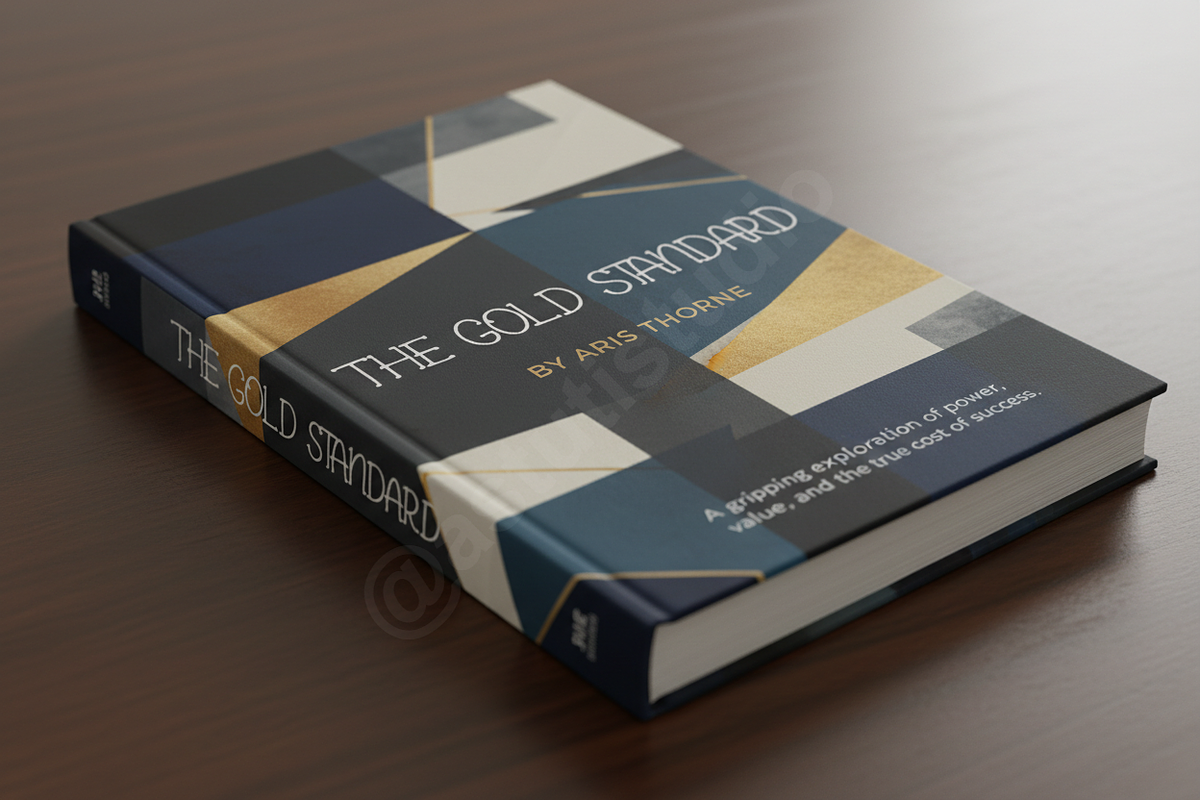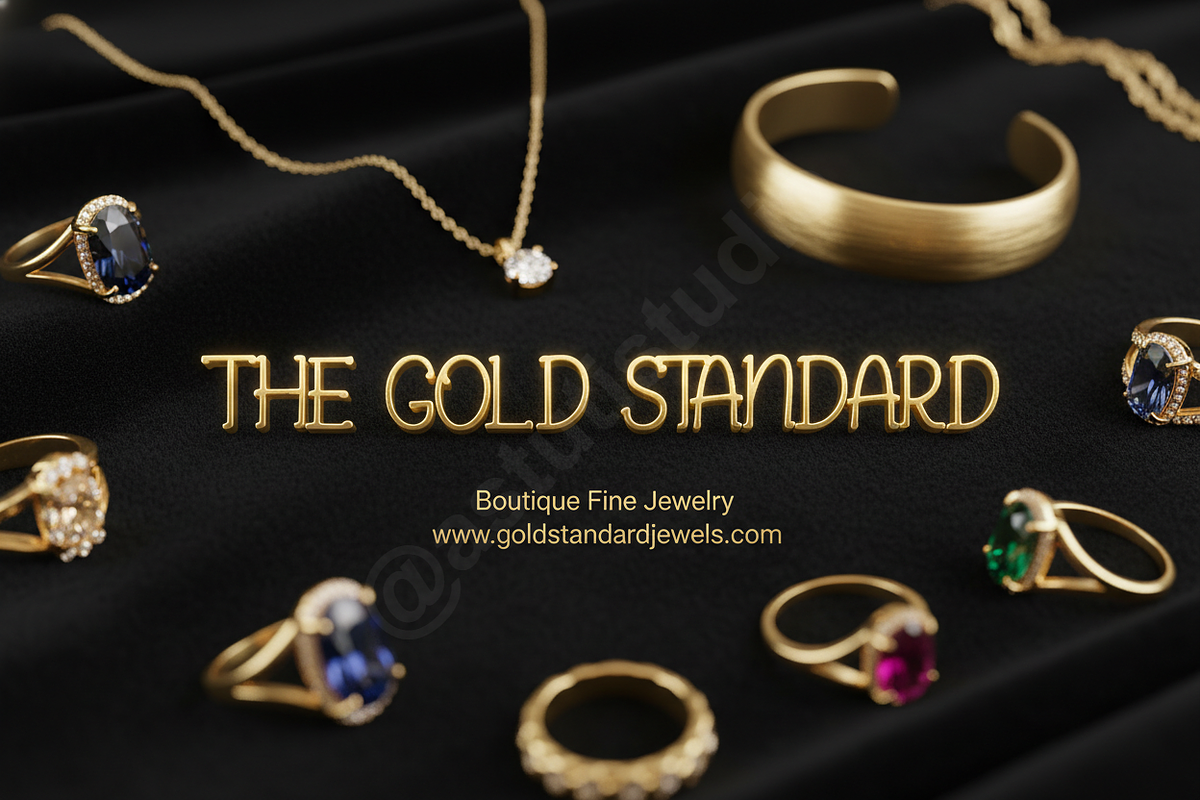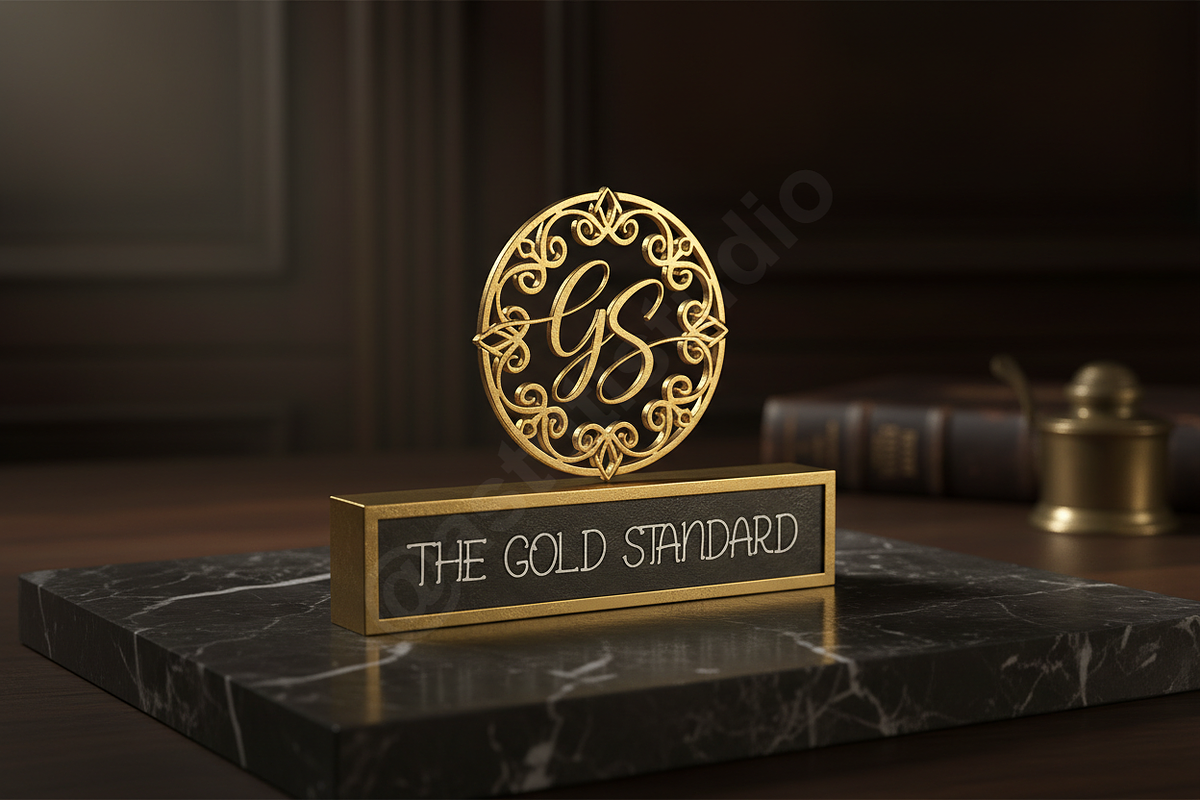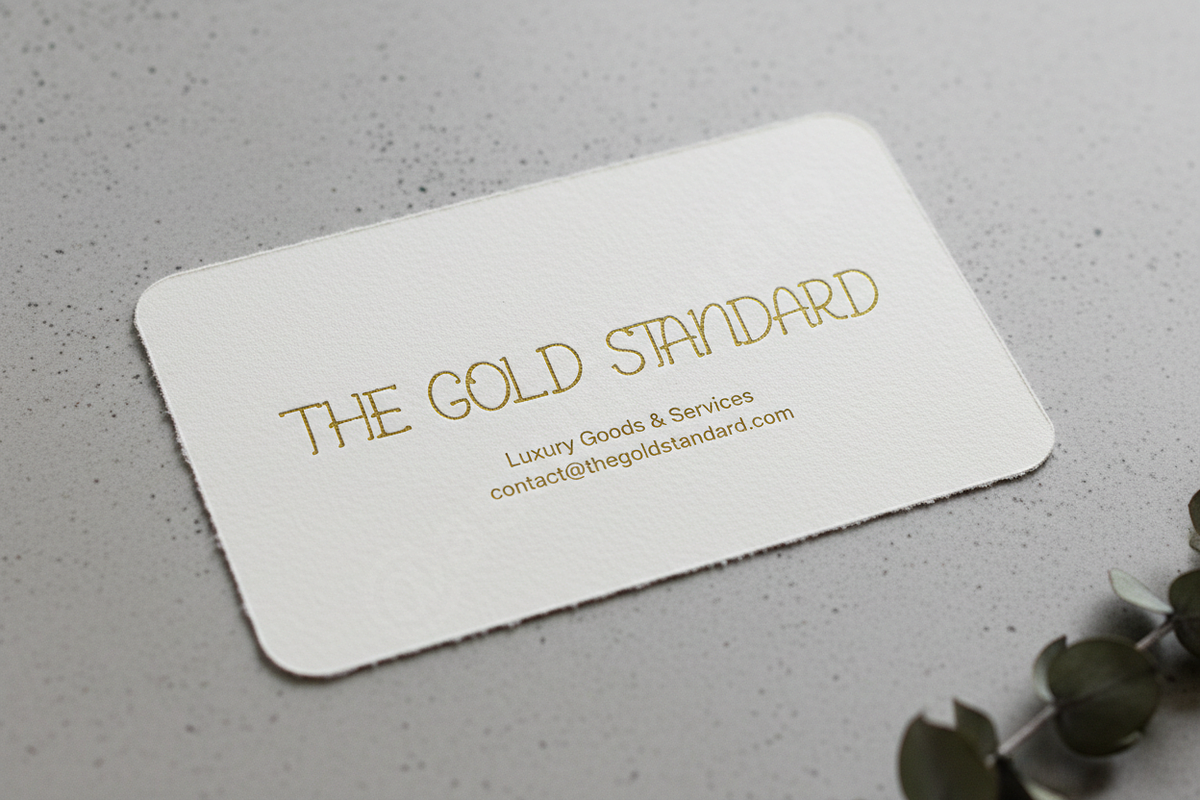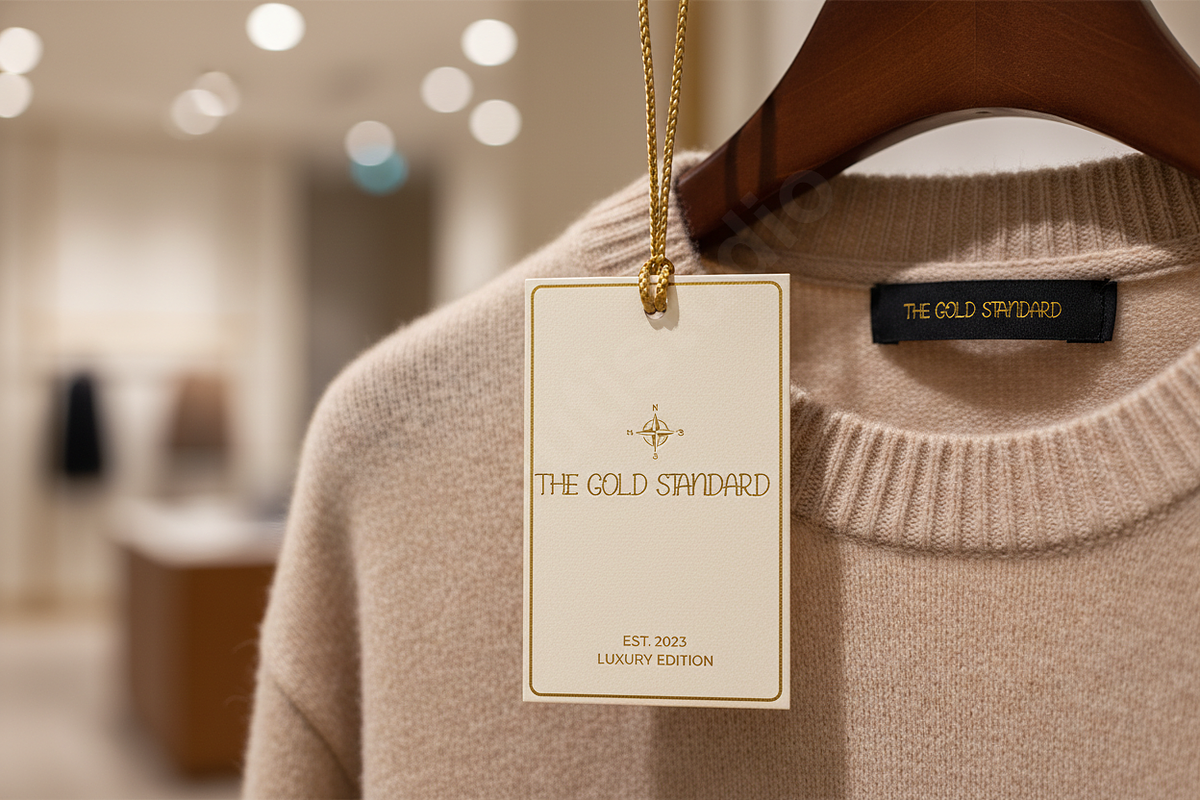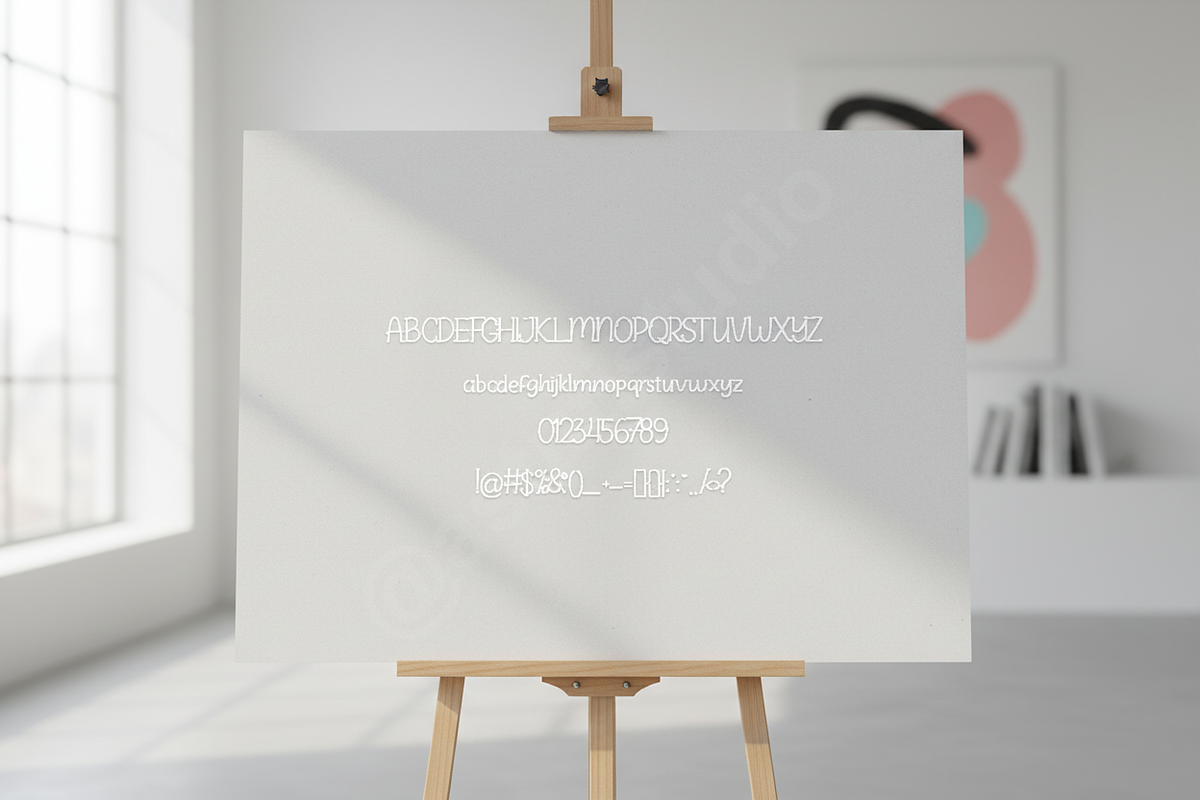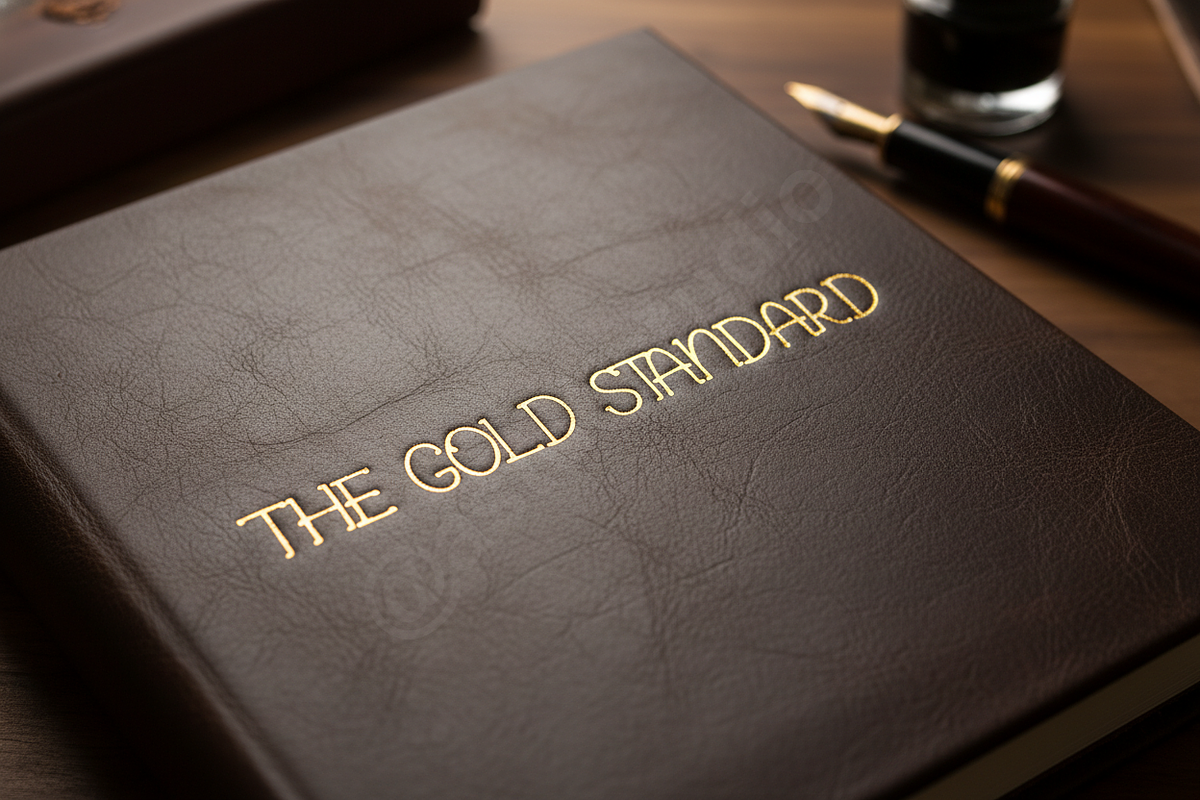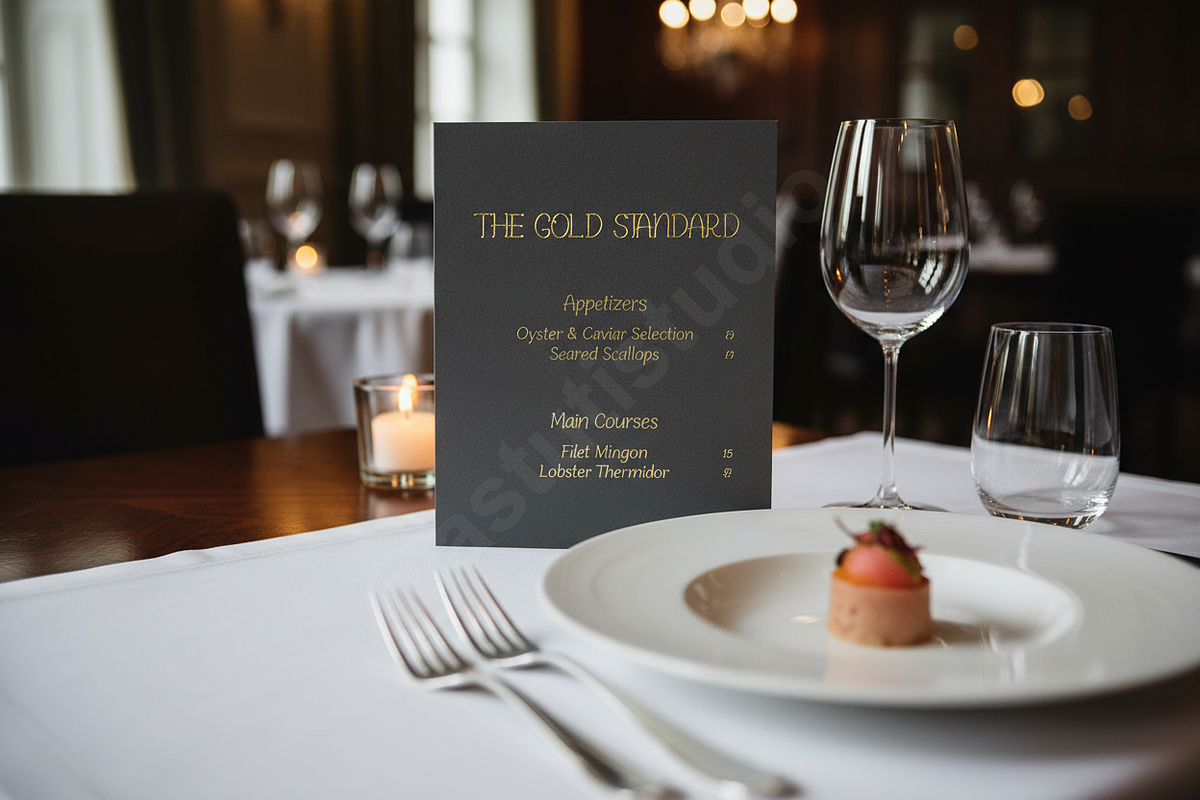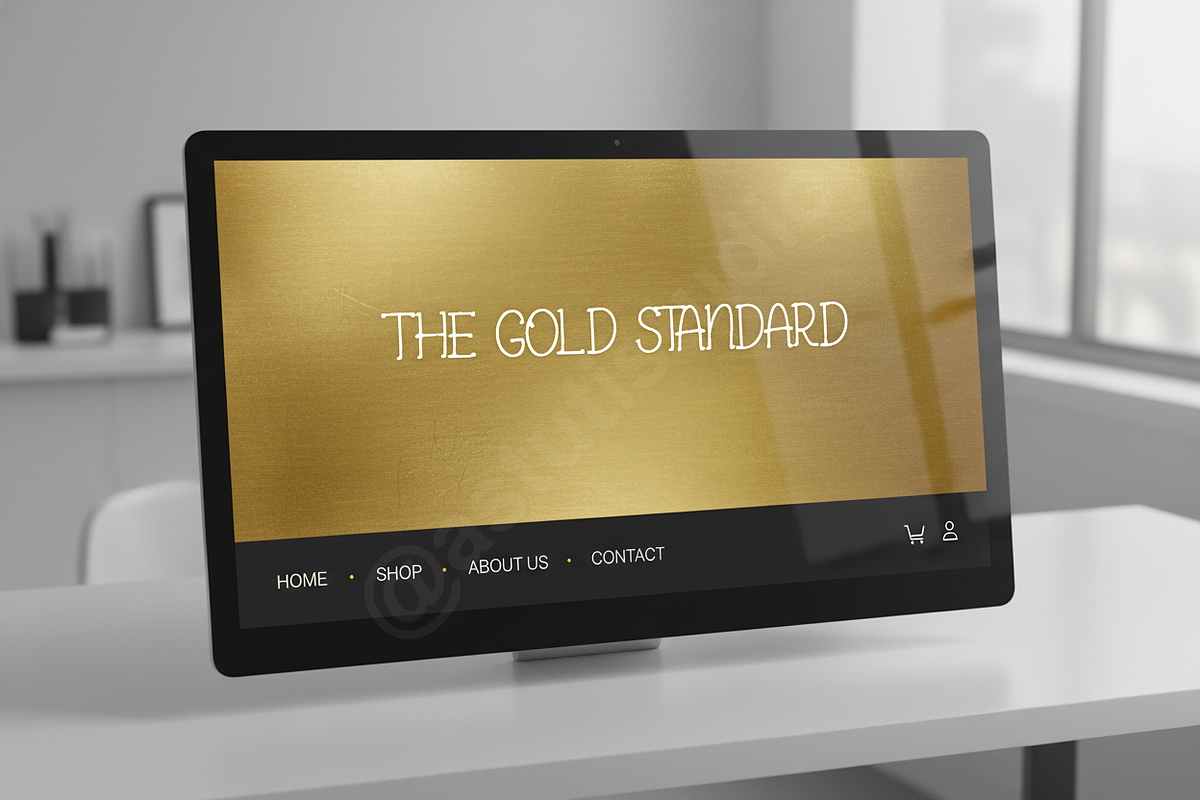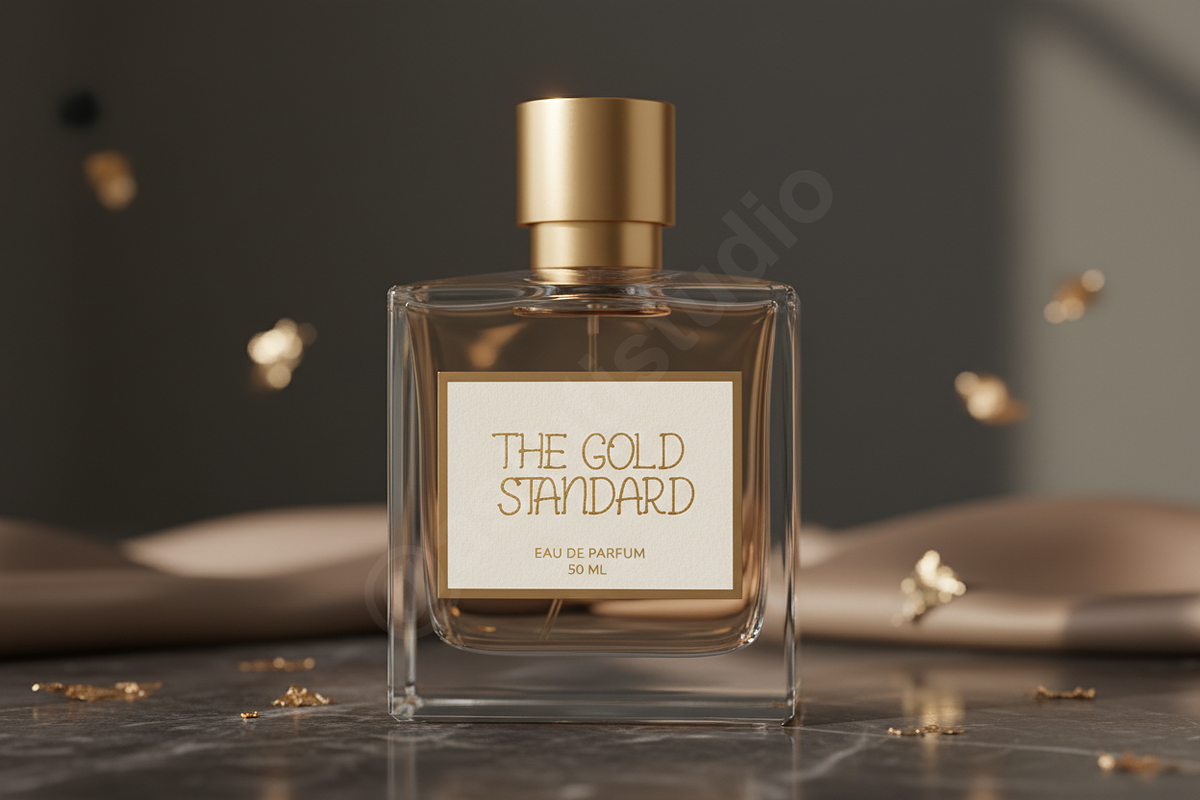
Biyeho - Elegant Luxury Display & Ed
Biyeho is a meticulously crafted display serif typeface designed for the modern luxury market. It embodies sophistication and timeless elegance, making it the definitive choice for projects demanding refinement and presence. With its delicate serifs and balanced proportions, Biyeho seamlessly merges classic grace with contemporary style, ensuring your brand identity resonates with premium quality.
- Perfect for Luxury Branding, High-Fashion Editorial, and Premium Social Media Graphics.
- Full set of standard characters, numerals, and punctuation.
- Extensive multilingual support for global reach (A-Z, 0-9, and specific regional glyphs).
- Subtle ligatures and stylish alternates for sophisticated typographic layouts.
- Optimized kerning for crisp, professional headline typesetting.